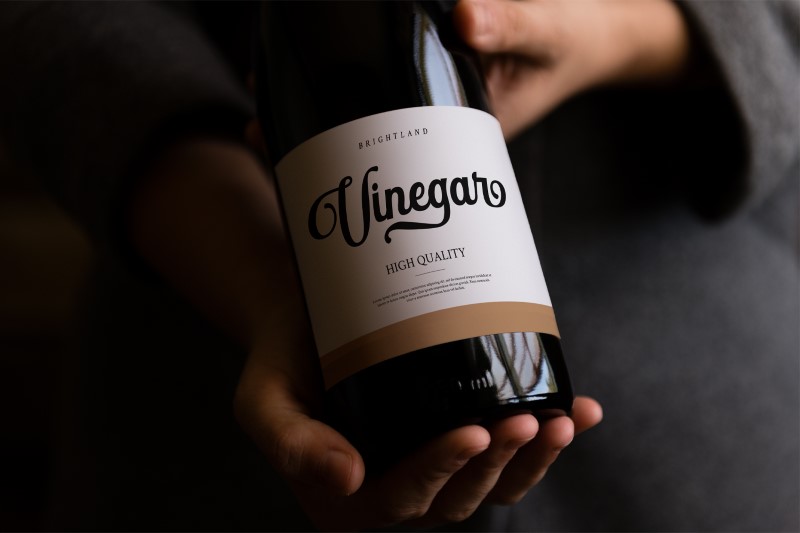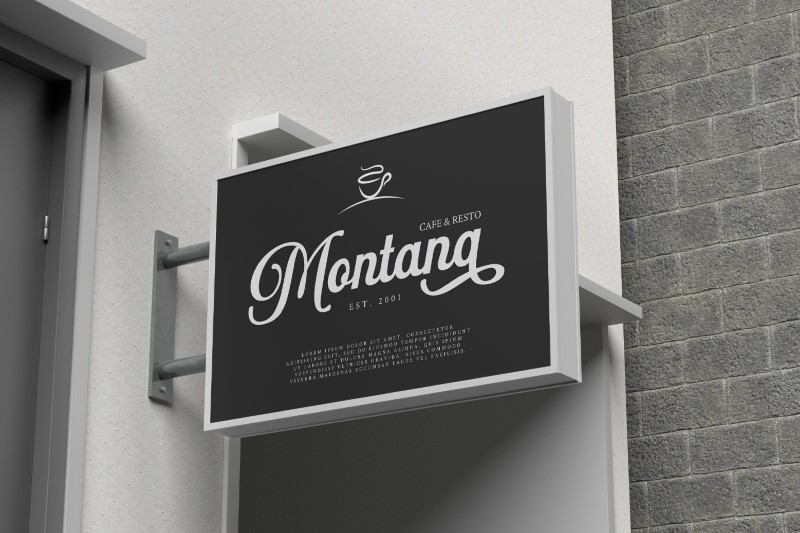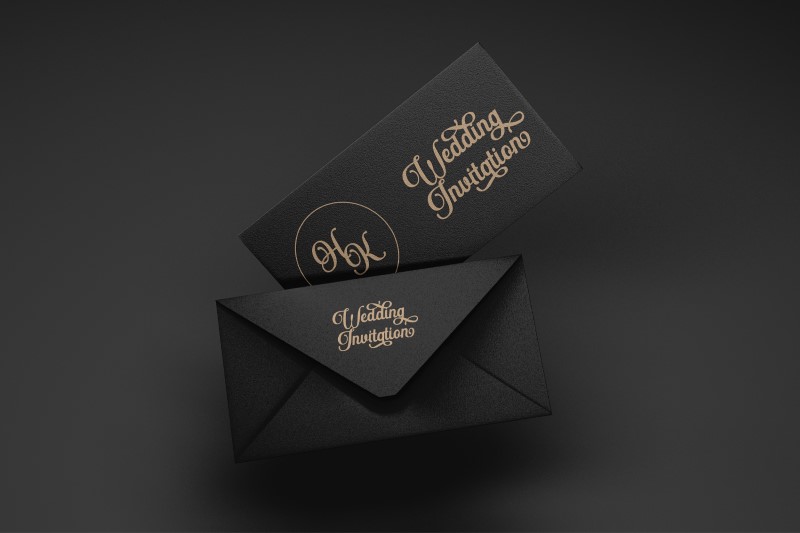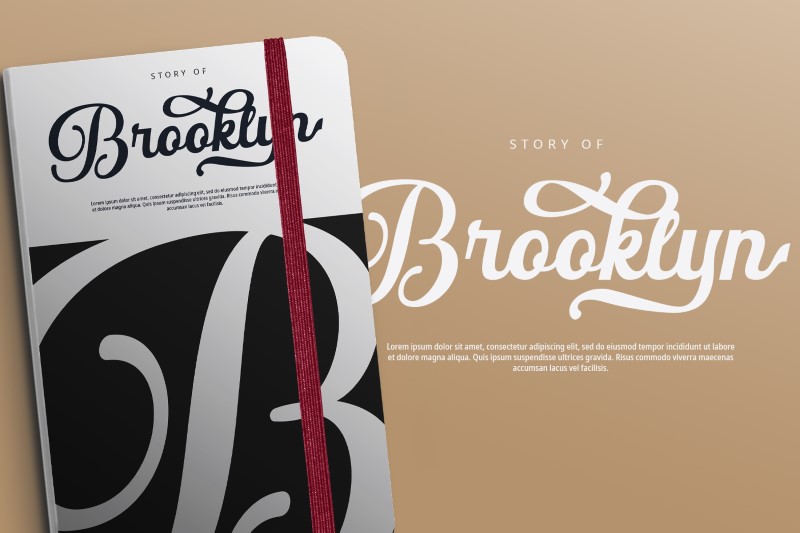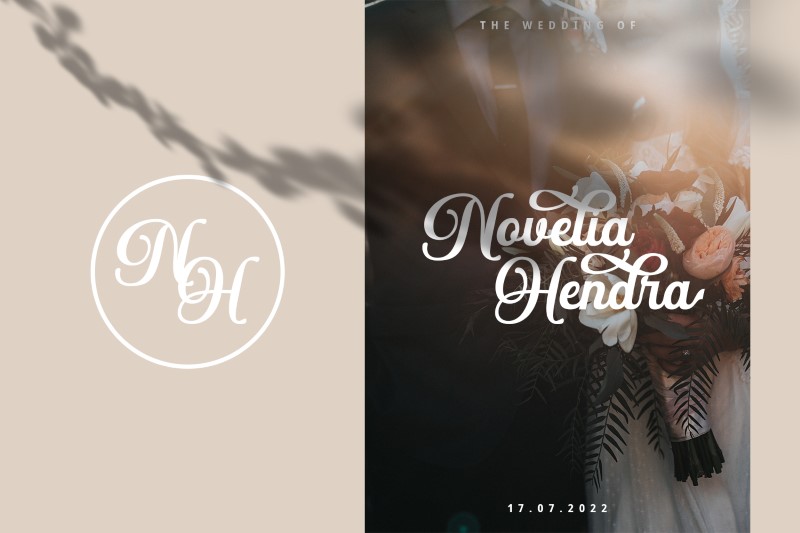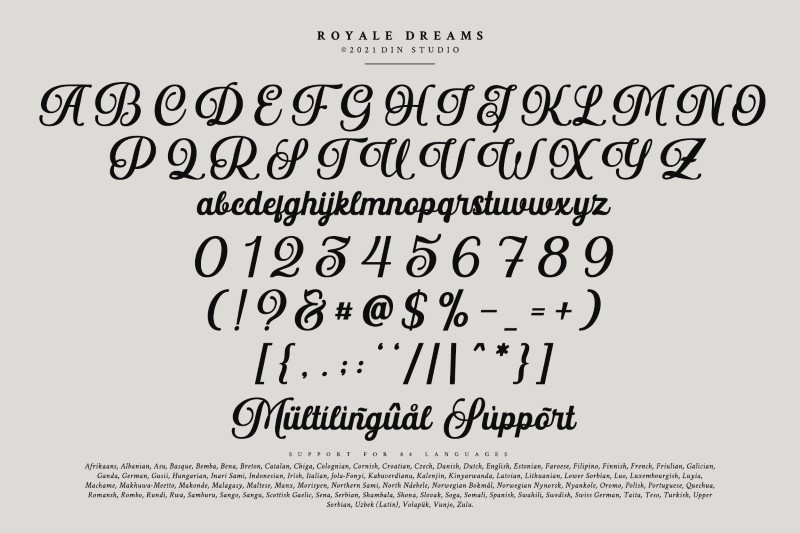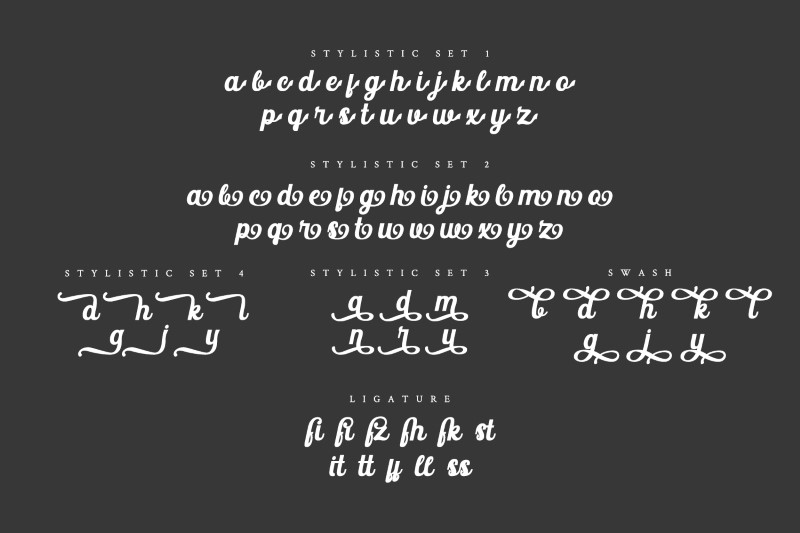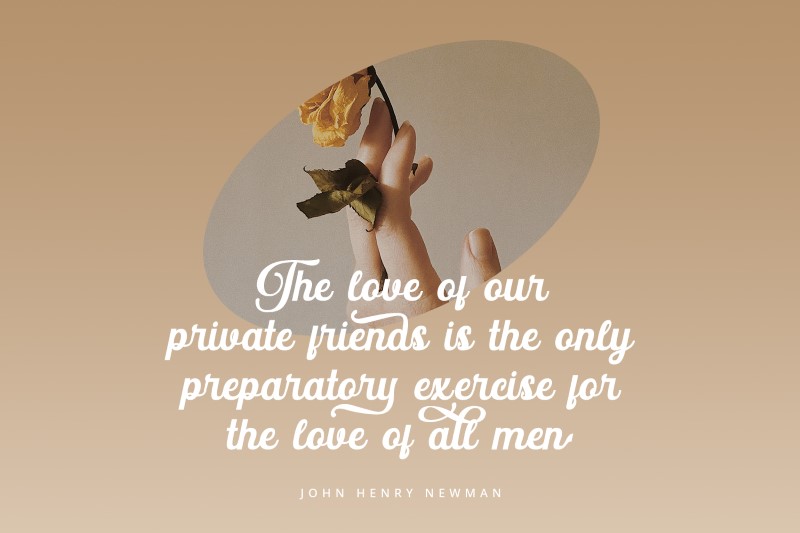
Royale Dreams
Royale Dreams is an elegant script typeface. Designed primarily as a captivating handcrafted style. This typeface that is easy on the eyes font that excels at captivating headlines, or large branding text, the font oozes that cute aesthetic that just makes you go “aww!”
Our font always includes Multilingual Supports to make your branding reach a global audience. See the previews above to get some inspiration on how you can use them.
Features include:
• Ligatures
• Stylish Sets
• PUA Encoded
• Numerals and Punctuations